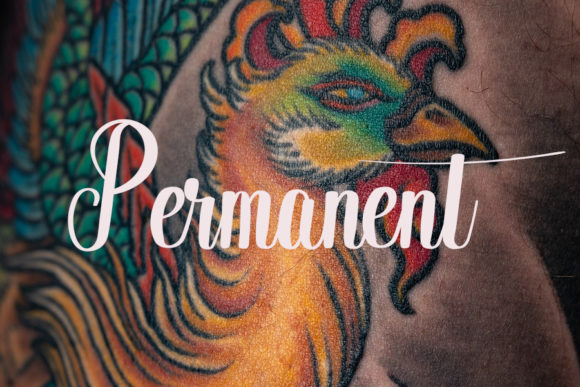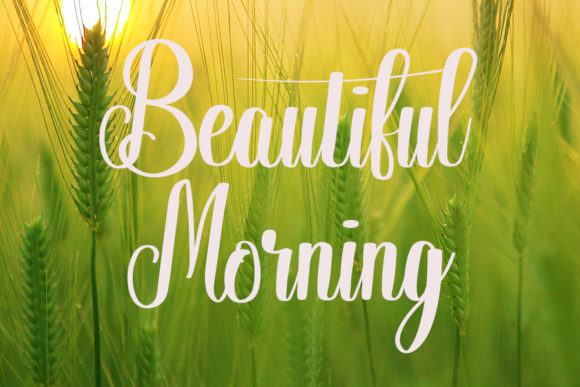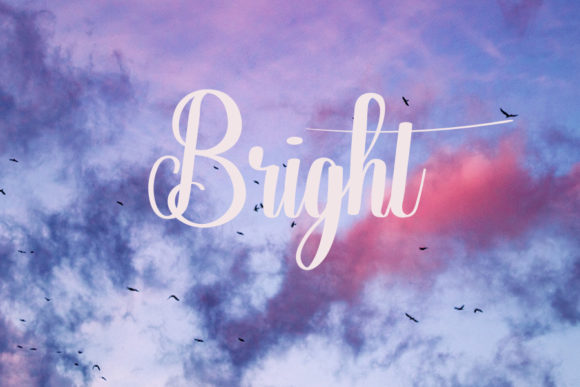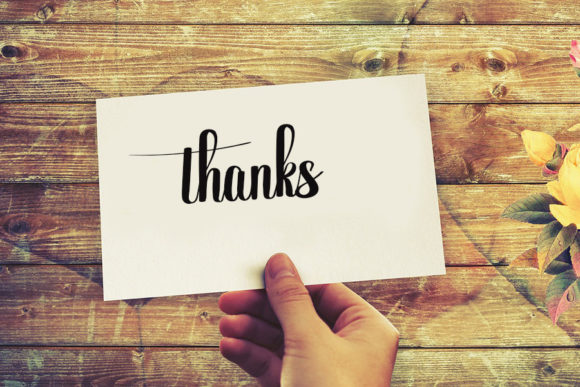
Introduction to Mandala Handmade Font
Have you ever found yourself in the middle of a creative project, desperately searching for the perfect font to bring your vision to life? We’ve all been there – scrolling through endless options, hoping to stumble upon that one font that captures the essence of our design. For designers, finding the right font can be the difference between a good project and a great one. That’s why we’re excited to introduce you to the Mandala Handmade Font, a beautiful and versatile handwritten font that’s sure to become a true favorite.
With its classy calligraphic influences and modern twist, the Mandala Handmade Font is the perfect design resource for any creative project. Whether you’re working on a wedding invitation, a blog post, or a social media campaign, this font is sure to add a touch of elegance and sophistication. And the best part? It’s available for a free download, making it an accessible and high-quality design resource for designers of all levels.
Key Features of Mandala Handmade Font
- Unique Hand-Drawn Design: The Mandala Handmade Font features intricate, hand-drawn designs that add a touch of elegance to any creative project.
- Perfect for Creative Projects: This font is ideal for designers, artists, and crafters working on creative projects, such as invitations, posters, and digital art.
Honest Review: Mandala Handmade Font
I recently stumbled upon the Mandala Handmade Font, and I must say it’s a fantastic addition to any creative project. With its unique, hand-drawn style, it’s perfect for designers looking to add some personality to their designs.
Here are some things that work well about this font:
- ✨ High quality: The font is crisp and clear, making it perfect for both digital and print projects.
- ⚠️ Limited character set: The font only includes a limited set of characters, which may not be suitable for all design projects.
- ⚠️ Not ideal for small text: The font’s unique style can make it difficult to read when used for small text.
Overall, I’m impressed with the Mandala Handmade Font. It’s a great design resource for designers looking to add some creativity to their projects. While it may have some limitations, it’s definitely worth checking out.
The Mandala Handmade Font is perfect for a variety of creative projects, including:
- Party and event invitations.
- Business cards and marketing materials.
- Social media graphics and posts.